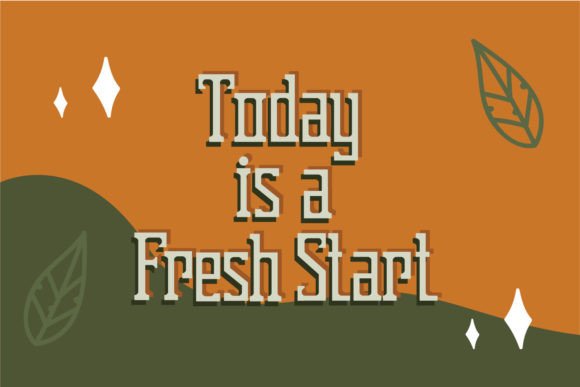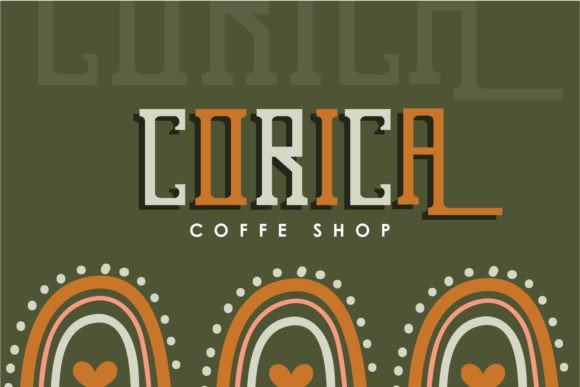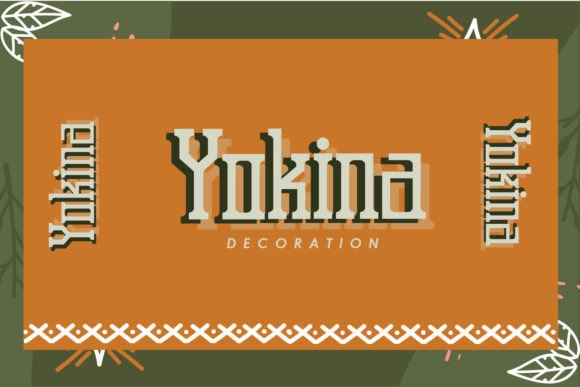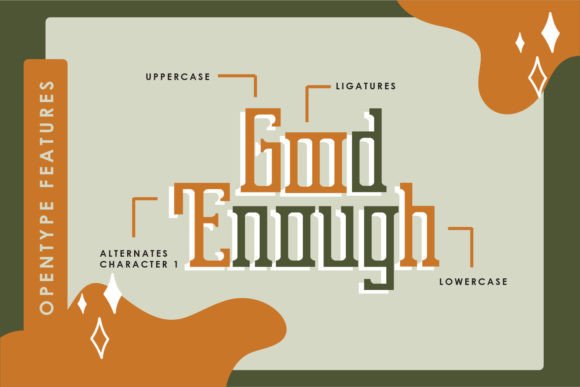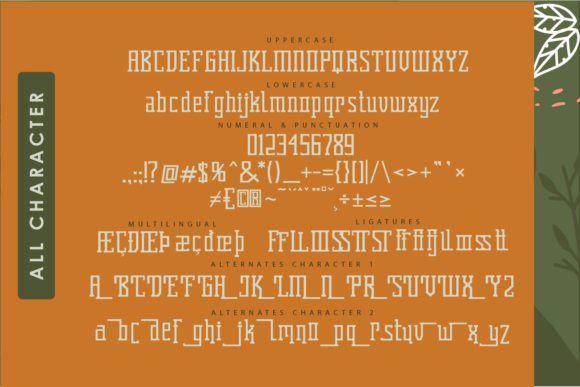
Introduction to Elmundho Font
Elmundho is a cool, vintage-style display font.
Add it to your most creative ideas and notice how it makes them come alive This font is PUA encoded which means you can access all the glyphs and ligatures with ease.
Key Features of Elmundho Font